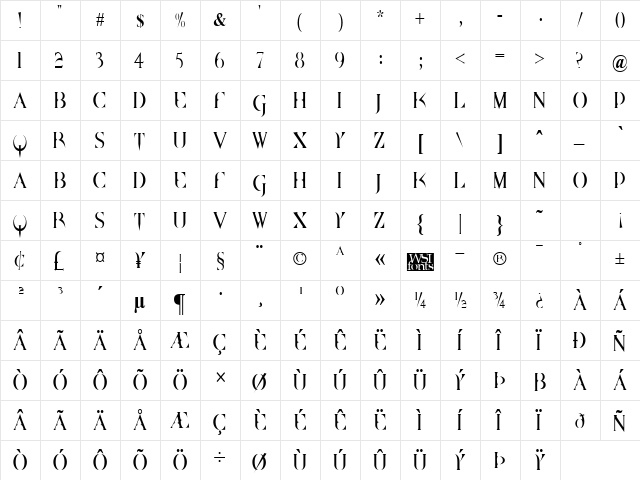
BrazeltonNarrow Regular Font Preview
BrazeltonNarrow Regular
Design Context for BrazeltonNarrow Typeface
BrazeltonNarrow is a composed and adaptable typeface that performs quietly and consistently across a wide range of design contexts. The condensed width makes it efficient for tight spaces without sacrificing legibility.